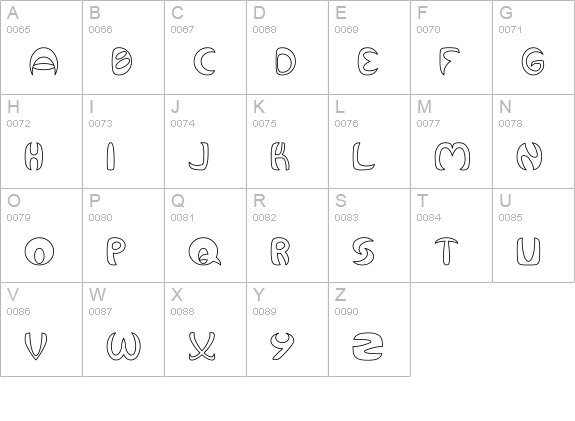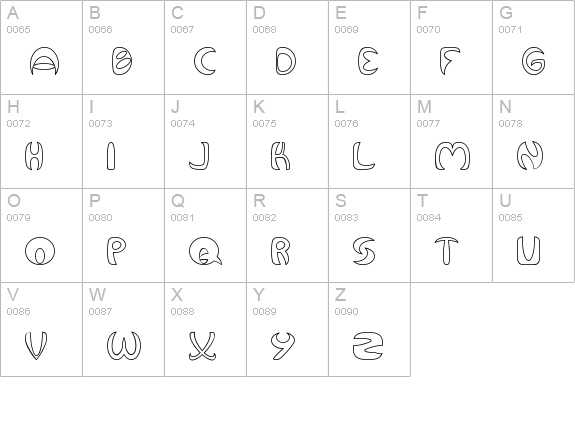
Introducing Qurve Hollow, a captivating and versatile font that will leave a lasting impression on any project. With its unique design and intricate details, Qurve Hollow is the perfect choice for those seeking a modern yet elegant touch in their typography. This font embodies a sense of sophistication and creativity, making it ideal for a wide range of applications. Whether you're designing a logo, creating a captivating title, or crafting an eye-catching poster, Qurve Hollow will effortlessly elevate your work to new heights. What sets Qurve Hollow apart is not only its stunning aesthetics but also its accessibility. This font is freely available to download at FontsMarket.com, allowing you to effortlessly incorporate it into your projects without any additional costs. Say goodbye to the limitations of expensive fonts and embrace the freedom of Qurve Hollow. With its clean lines and balanced curves, Qurve Hollow brings a sense of harmony to your designs. Its versatility allows it to seamlessly blend into any style or theme, making it a go-to choice for both professional designers and enthusiasts alike. Let Qurve Hollow be your creative companion, guiding you towards design excellence. Download it today from FontsMarket.com and unlock the boundless possibilities that this font has to offer. Embrace the freedom of expression and elevate your typography with Qurve Hollow.